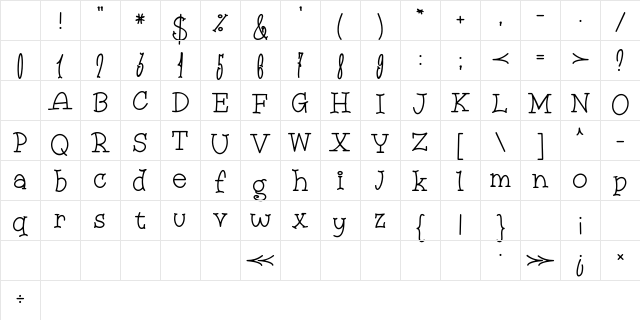
Complete Boston Bruins sans font duo Regular glyph index. Displaying only characters natively supported by Boston Bruins sans font duo Regular font.
Boston Bruins sans font duo is a composed and adaptable typeface that performs quietly and consistently across a wide range of design contexts.